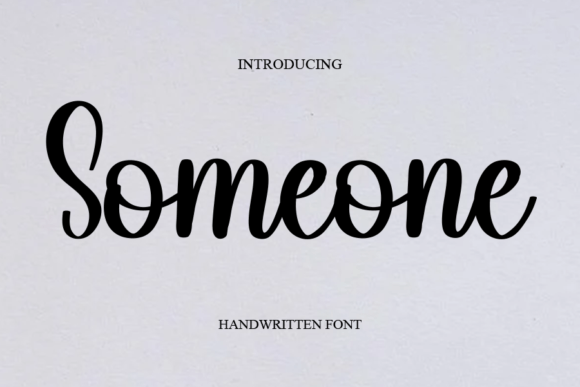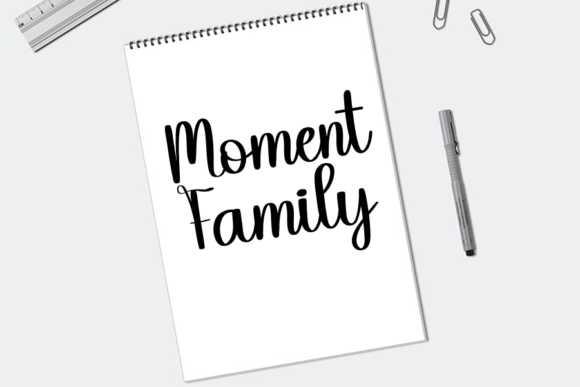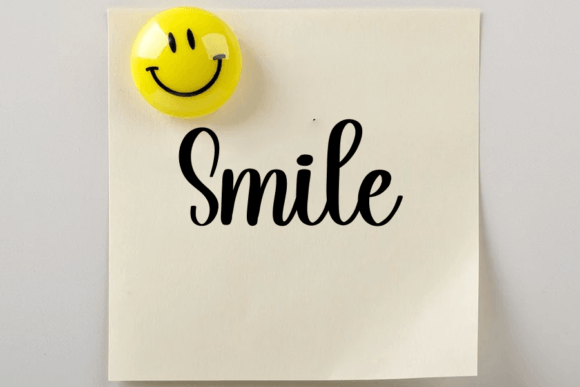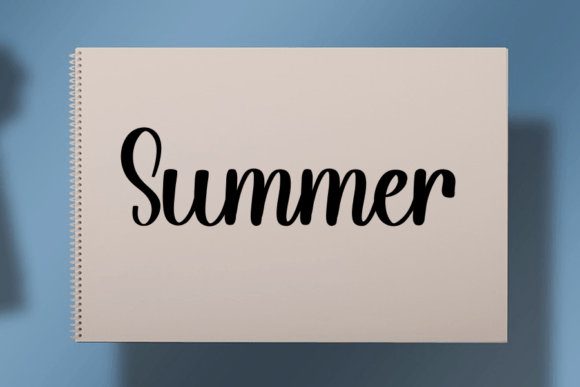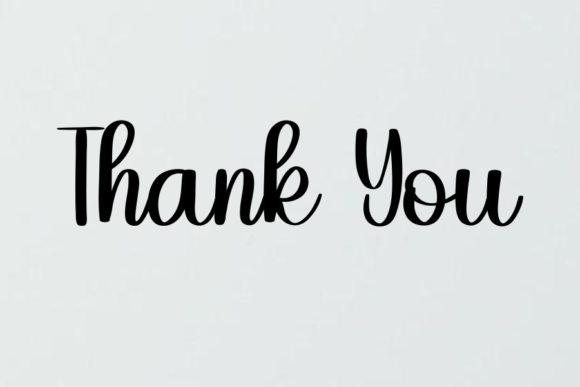
“Someone Font: Simple and Adaptable Script Elegance
Introducing Someone, a simple and adaptable script font designed to bring a cute and charming touch to your creative projects. This versatile typeface is perfect for a variety of applications, from love letters to wedding invitations and all your favorite design ideas. Add Someone to your toolkit, and you’ll be astounded by the delightful outcome it brings to your projects.
More than just a font, Someone is a design companion that effortlessly combines simplicity with a touch of charm. Its clean and adaptable script style makes it suitable for various design styles and applications.
The elegance of Someone shines through in its ability to enhance the visual appeal of diverse projects. Whether you’re crafting love letters or designing wedding invitations, Someone adapts effortlessly to elevate the aesthetics of your creations.
For love letters, Someone becomes a heartfelt choice, adding a cute and charming touch to your written expressions of affection. The font’s simple and adaptable script style creates an endearing and delightful reading experience.
In wedding invitations, Someone serves as a versatile element, contributing to a memorable and personal touch to your event announcements. Its clean design adds a touch of sophistication and charm to your invitations.
Someone’s versatility extends to various design ideas, making it suitable for a wide range of creative applications. The font’s unique character enhances the overall aesthetics, creating a visually pleasing and delightful outcome.
In conclusion, Someone is more than just a font; it’s a design companion that brings simple and adaptable script elegance to your creative toolkit. Let Someone be the brushstroke that enhances the beauty of your projects. Embrace the versatility and charming simplicity of Someone, and watch as it transforms your ideas into delightful experiences.”